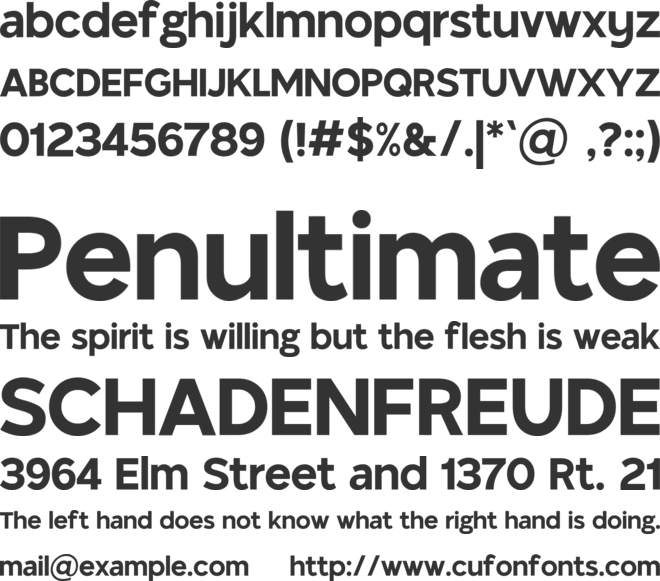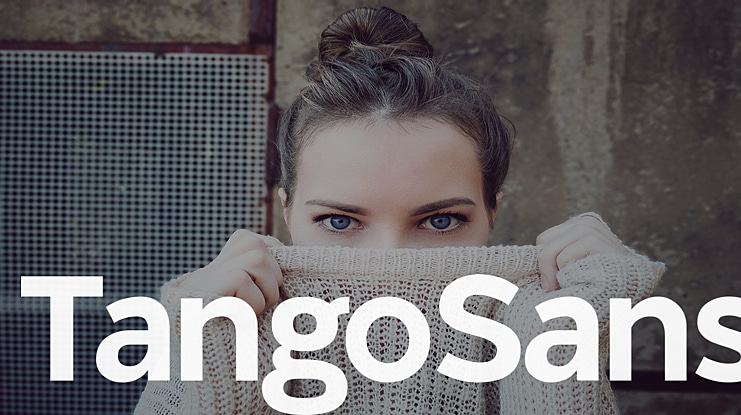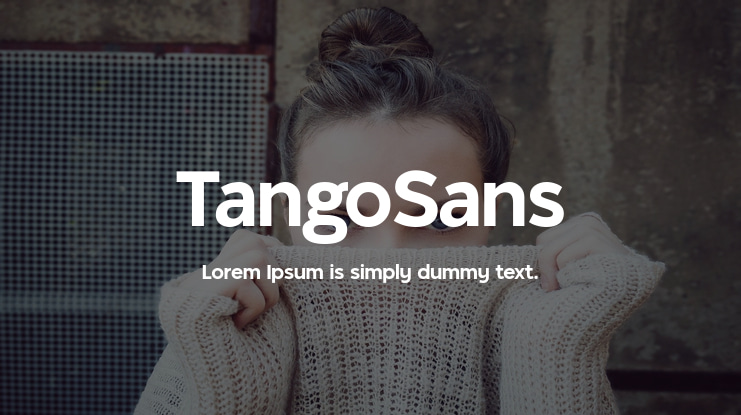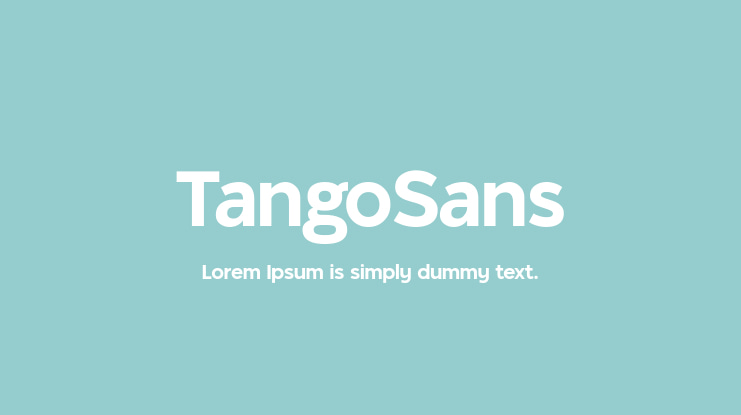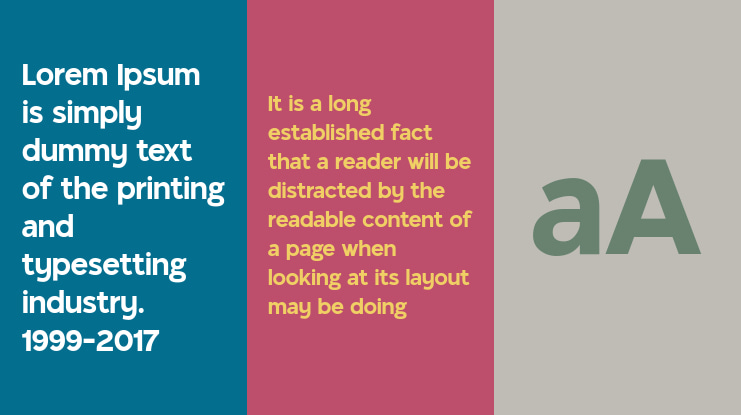
TangoSans Font Family
Introducing Tango Sans, a casual san serif font that fit with any of your project.
It is great for title, text, logo, posters, banner etc.